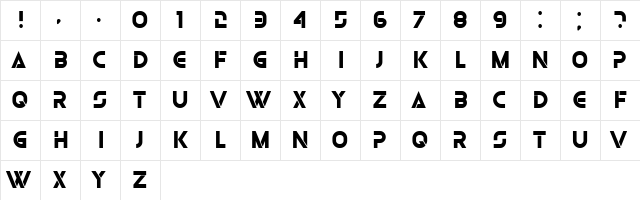
Olga Bold
Design Context for Olga Typeface
Olga takes a measured approach to typography — its balanced proportions and neutral character make it a reliable workhorse for both digital and print work. The heavy weight commands attention and anchors typographic hierarchies.